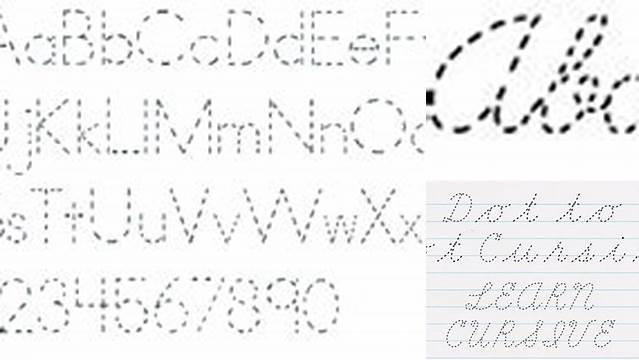
Hey guys! Ever wanted to teach handwriting in a fun, engaging way? Or maybe you’re just looking for a unique font for your next creative project? Well, look no further! We're diving deep into the world of ABC cursive dotted fonts – and the best part? You can download them for free in TTF format. Let's get started!
Cursive Dotted Font: What is it?
So, what exactly is a cursive dotted font? Simply put, a cursive dotted font mimics handwriting with dotted lines, making it super easy for beginners to trace and learn the art of cursive. These fonts are incredibly useful for educational purposes, especially for kids just starting to learn how to write. Imagine a child being able to trace letters and words, gradually building muscle memory and understanding the flow of cursive writing. It's not just about writing; it's about making learning fun and interactive.
These fonts aren't limited to just educational settings. Designers often use them for invitations, scrapbooking, or adding a whimsical touch to various projects. The dotted lines give a playful, approachable feel that can soften the overall look of your design. Plus, the act of tracing, even digitally, can be quite therapeutic! The versatility of a cursive dotted font is what makes it such a valuable asset. Whether you're a teacher, a parent, or a designer, having access to these fonts can open up a world of creative and educational possibilities.
Benefits of Using Cursive Dotted Fonts
Why should you even bother with a cursive dotted font? Well, the benefits are numerous! For starters, they’re a fantastic tool for early childhood education. By tracing the dotted lines, kids develop fine motor skills, improve hand-eye coordination, and learn letter formation in a structured way. This hands-on approach to learning makes the process more engaging and less intimidating for young learners. They can actually see and feel the flow of the letters, which aids in better retention.
Beyond education, these fonts offer a unique aesthetic appeal. Think about personalized greeting cards, custom-made worksheets, or even unique logos. The dotted effect adds a touch of playfulness and nostalgia, making your projects stand out. Moreover, they're super accessible! With free downloads available online, anyone can experiment with these fonts and incorporate them into their work. It’s a win-win situation: educational value combined with creative freedom. So, go ahead and explore the possibilities – you might be surprised at how versatile and useful a cursive dotted font can be.
ABC Cursive Dotted Font for Kids: A Learning Tool
For parents and educators, an ABC cursive dotted font is a game-changer. It transforms the often-tedious task of learning cursive into an interactive and enjoyable experience. Imagine a child tracing the letters of their name, gradually mastering the flow and form of each character. It's not just about memorization; it's about building a solid foundation in handwriting. These fonts can be used to create customized worksheets, practice sheets, and even fun handwriting games.